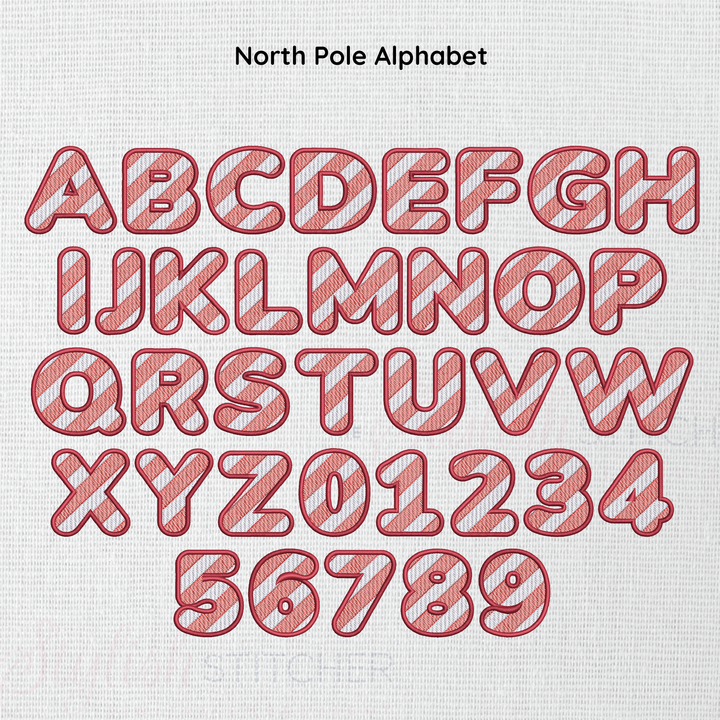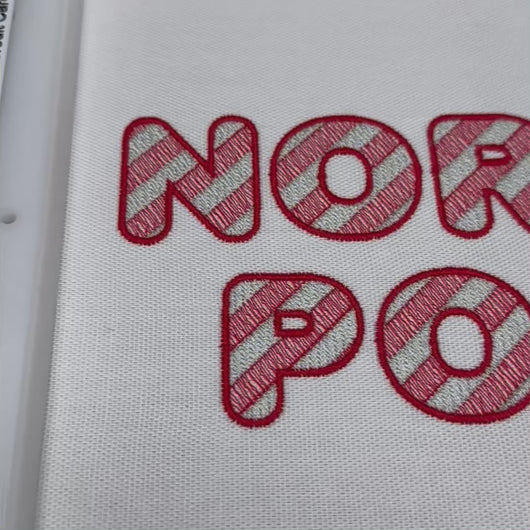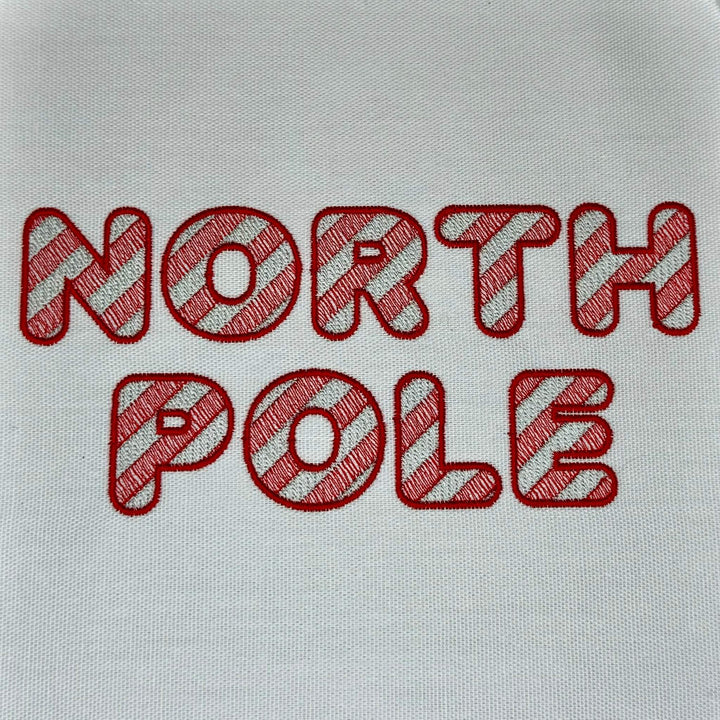
Photograph of stitched out North Pole embroidery font
Photograph of stitched out North Pole embroidery font alphabet
Close up photograph of stitched out North Pole embroidery font
Video showcasing stitched out North Pole font
North Pole Digital Alphabet Font
Bring the magic of the holidays to your projects with the North Pole font! This playful, candy-cane-inspired embroidery font is perfect for festive designs. Featuring whimsical stripes created with a sketch stitch and outlined with a smooth satin stitch, it’s ideal for adding a sweet touch to stockings, holiday decor, and more. Whether you’re stitching up some Christmas cheer or adding a dash of peppermint flair, North Pole is your go-to for seasonal creations. Get ready to sprinkle some holiday spirit into every stitch!
Included: Letters A-Z, Numbers
Stitch Type: Sketch Stitch & Satin Stitch